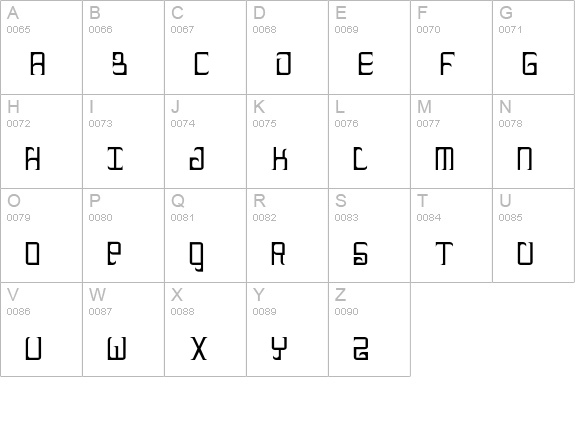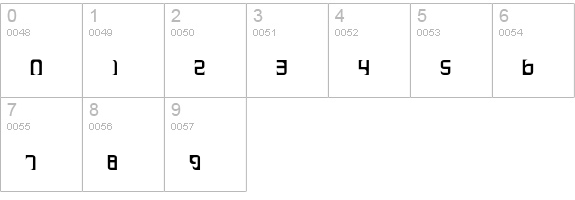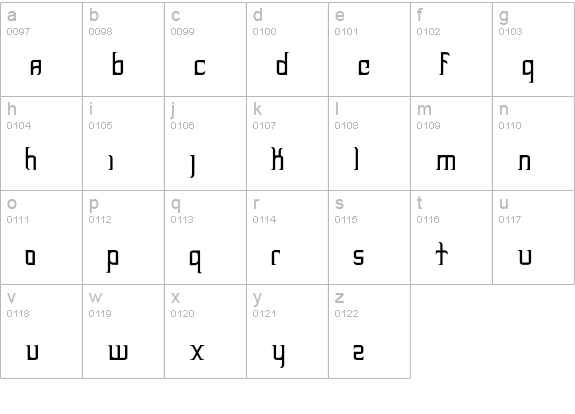
Heckler-Regular Font Details
Heckler-Regular is the standard, neutral variant in the Heckler typeface family \xE2\x80\x94 well suited to general body text, paragraphs, and standard typographic work.
Heckler-Regular font is a versatile and dynamic typeface that exudes confidence and sophistication. With its clean and modern design, this font is perfect for a wide range of design projects, from branding and packaging to website headers and print materials. The Heckler-Regular font features a balanced combination of sharp edges and subtle curves, creating a harmonious blend of elegance and strength. Its legibility is exceptional, making it an ideal choice for both large headlines and smaller body text. One of the standout features of Heckler-Regular font is its versatility. It can effortlessly adapt to various design styles, from minimalist and contemporary to bold and expressive. This versatility allows designers to create unique and eye-catching typographic compositions. But what sets Heckler-Regular font apart is that it is free. That's right, this exceptional font is freely available to download at FontsMarket.com. Whether you're a professional designer or a hobbyist, you can access this font without any cost. This accessibility makes it an excellent choice for both personal and commercial projects. So why wait? Download Heckler-Regular font today from FontsMarket.com and unleash your creativity with this stunning and freely available typeface.